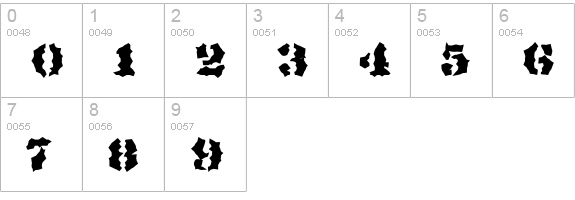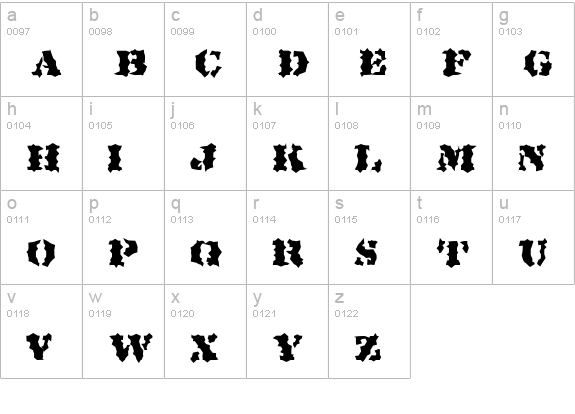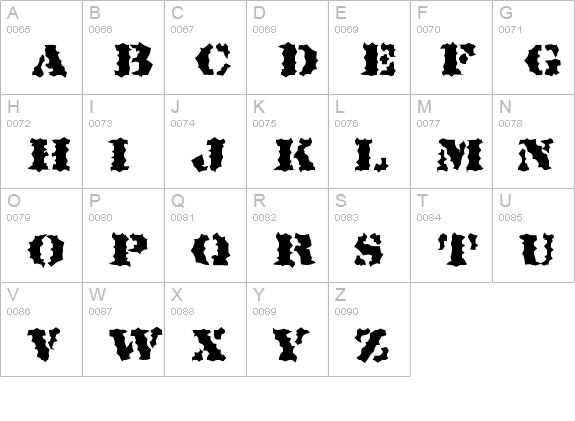
Metallica Font Details
The Metallica font is a bold and powerful typeface that exudes a sense of strength and durability. Its sharp edges and heavy strokes make it perfect for creating impactful designs that demand attention. Whether you're working on a heavy metal album cover, a poster for a rock concert, or any project that requires a strong and edgy look, Metallica font is the ideal choice. Best of all, Metallica font is available for free download at FontsMarket.com. This means you can start using this dynamic font in your projects without having to worry about any additional costs. With its unique style and versatility, Metallica font is sure to make your designs stand out and leave a lasting impression on your audience. Download it today and unleash the power of Metallica font in your creative projects.